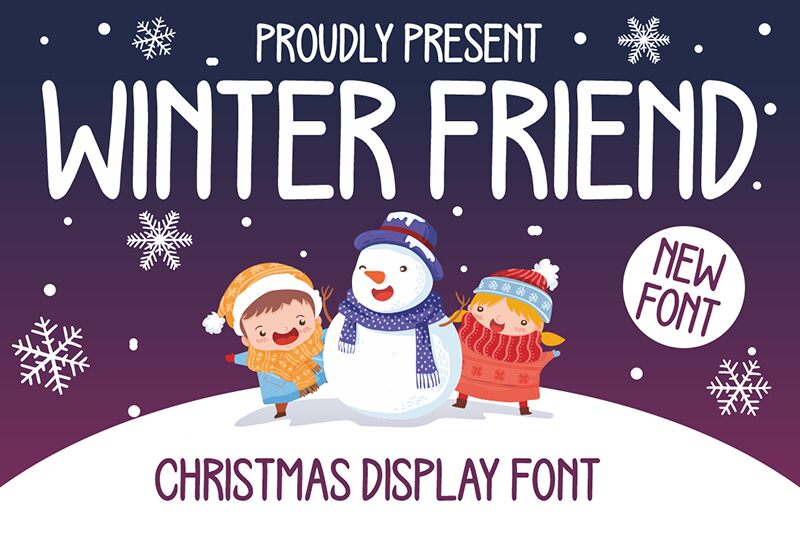
WINTER FRIEND
Winter Friend font by Gilang Ternadho is a comic display font with condensed characters. It boasts casual, slightly irregular shapes as well as a whimsical feel that creates an overall nonchalant look. The organic and hand-drawn appearance of this free font gives it its friendly look which will put anyone who views it in a cheerful mood.
This font can be used for children’s books, greeting cards, handwritten logos, t-shirts, mugs or jars packaging labels and typography quotes. Use it for diaries or notebooks cover designs, posters, event invitations etc.